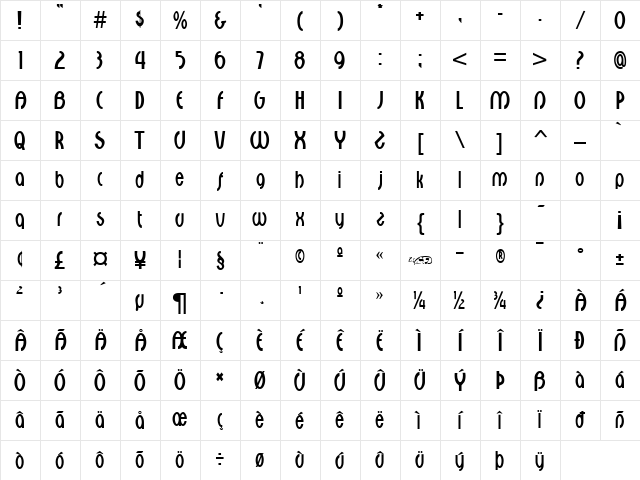
Croix Regular
Design Context for Croix
Croix is a composed and adaptable typeface that performs quietly and consistently across a wide range of design contexts.